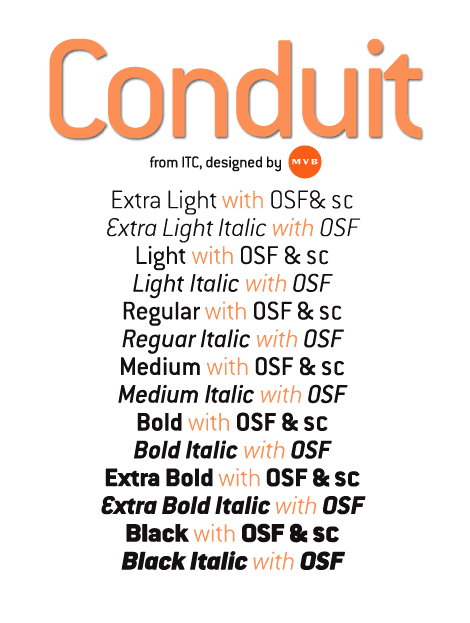
ITC Conduit Complete Family Pack (Monotype)
ITC Conduit is a hugely popular sans serif font designed by Mark van Bronkhorst. It is based on the letters on ordinary signage done by a non-professional. He took the regular but awkward forms and added his experienced sense of design and proportion and in the process broke almost every rule. The forms were made with a grid, "like the 90 degree corners in real conduits with all the tips and corners rounded off." A few optical corrections produced ITC Conduit, a fairly narrow, square and highly legible sans serif typeface.Monotype Imaging Inc. - END USER LICENSE AGREEMENT